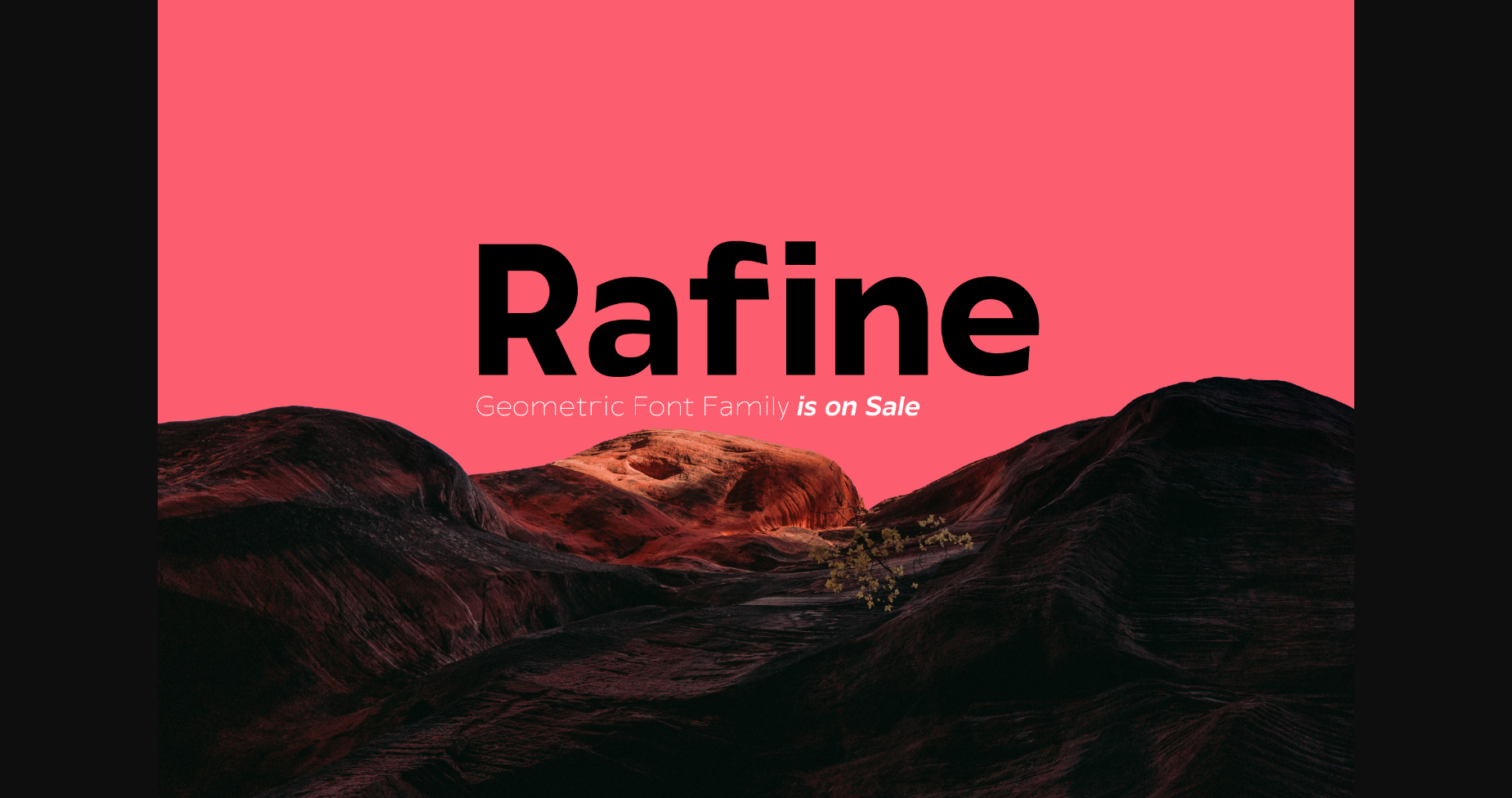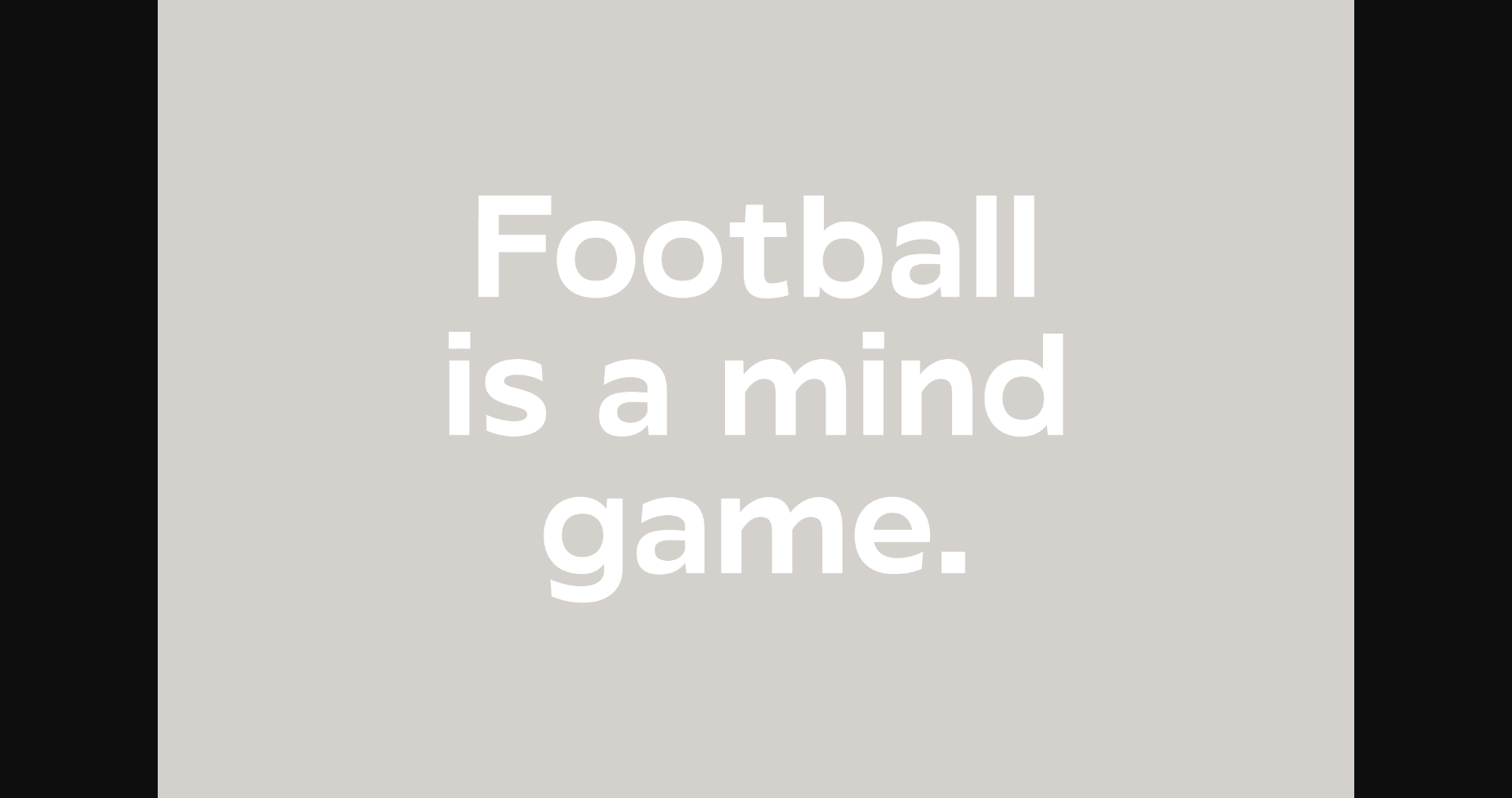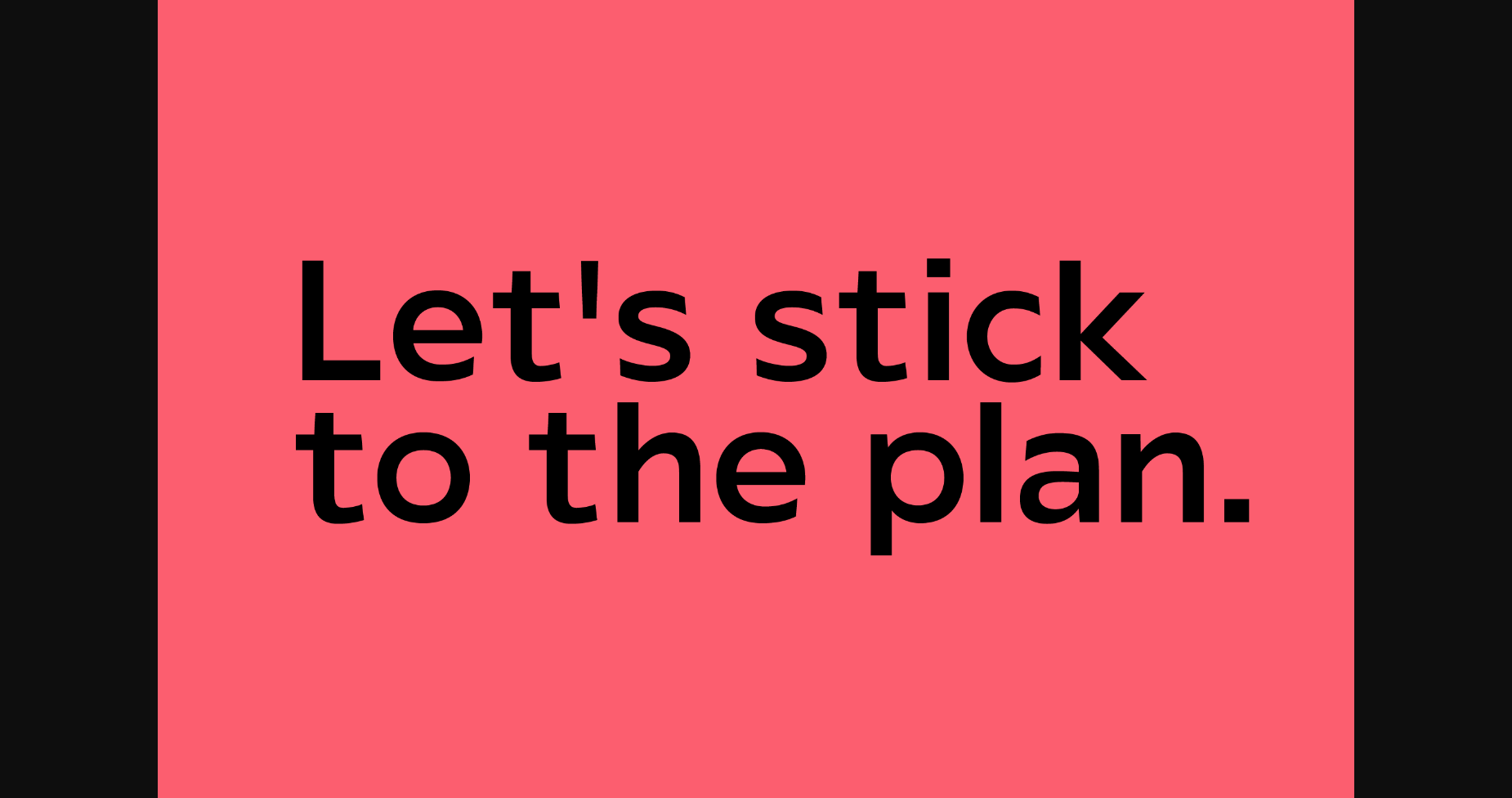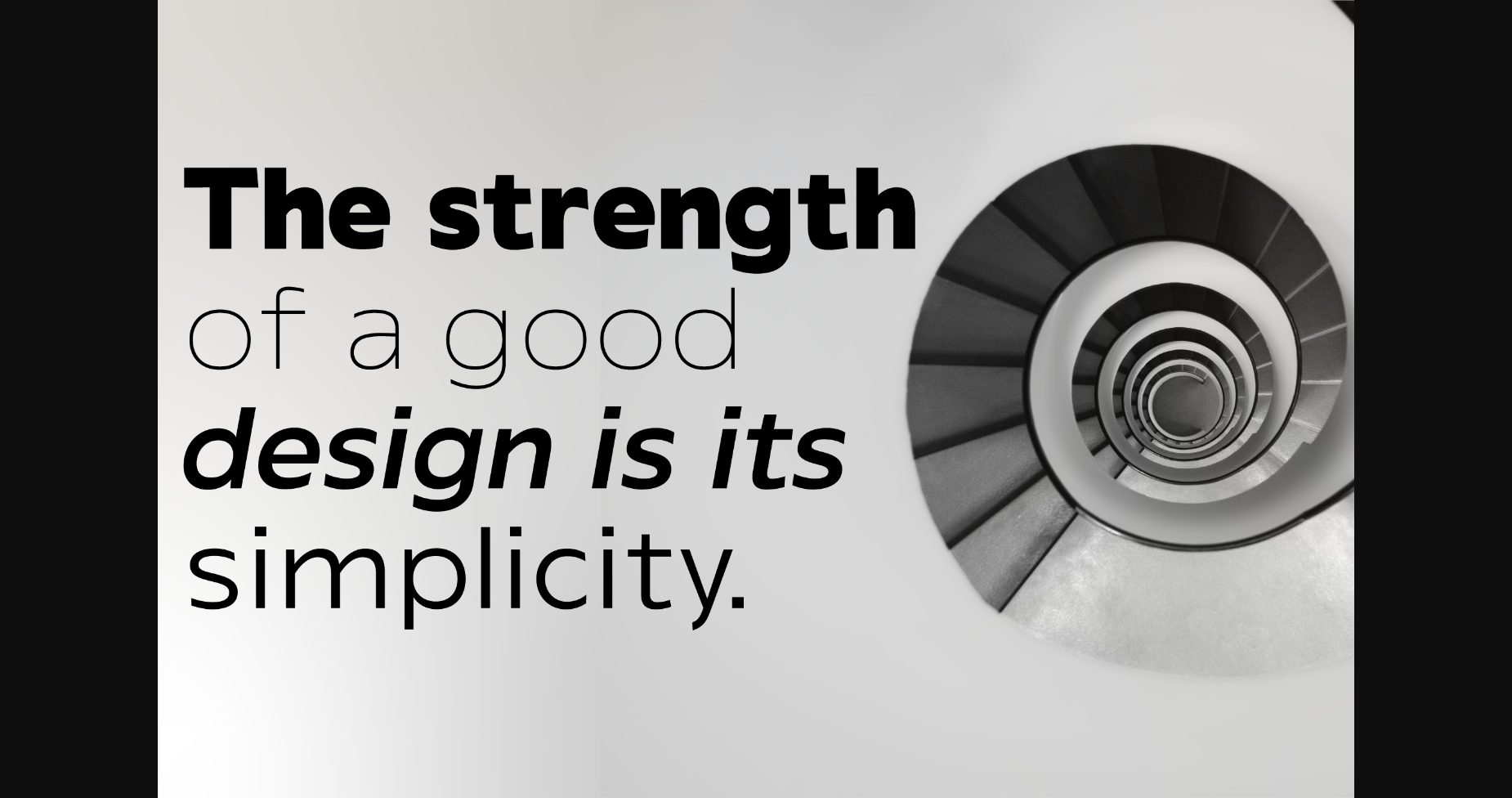
About Rafine Font
Rafine is a modern and neat sans serif font. It can easily be matched to an incredibly large set of projects, so add it to your creative ideas and notice how it makes them stand out!